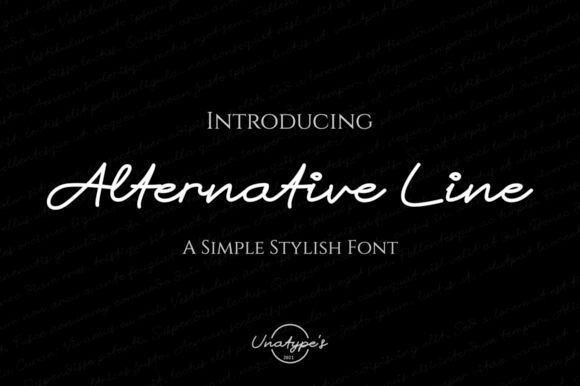
Alternative Line
The Alternative Line font, designed by Onne Hermawan, is a captivating handwritten typeface that exudes a sense of artistic flair. With its semi-light weight and semi-expanded width, this font strikes the perfect balance between elegance and readability. Its graceful strokes and unique character shapes make it ideal for a variety of creative projects. Whether you're designing invitations for a whimsical wedding or crafting eye-catching logos for an innovative startup, Alternative Line will effortlessly add a touch of charm to your designs. Embrace the versatility of this font and let your creativity soar!
Alternative Line is a monoline script font with cursive style, many characters are smoothly connected.
This lovely typeface is great for designers who are seeking a natural and authentic style in their creations!